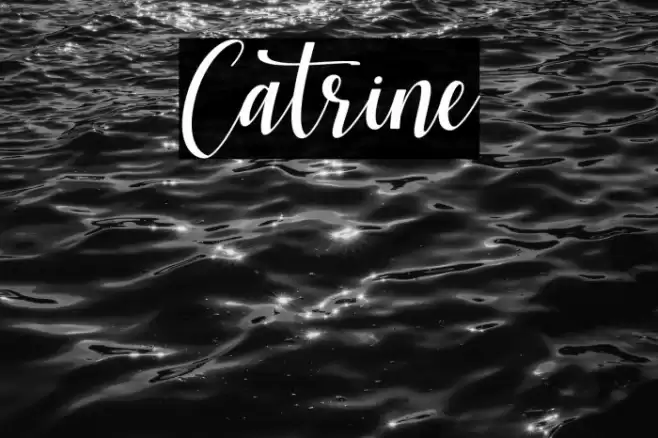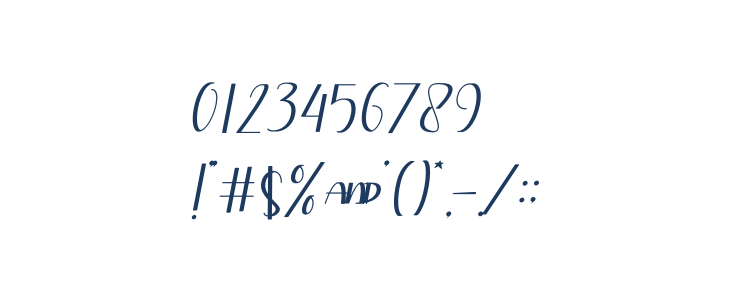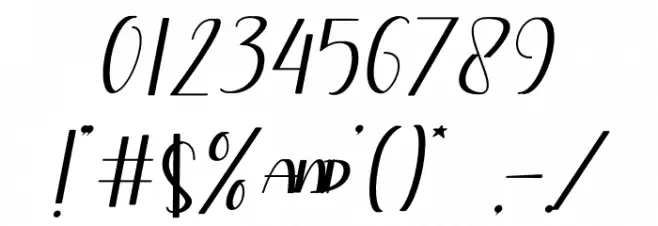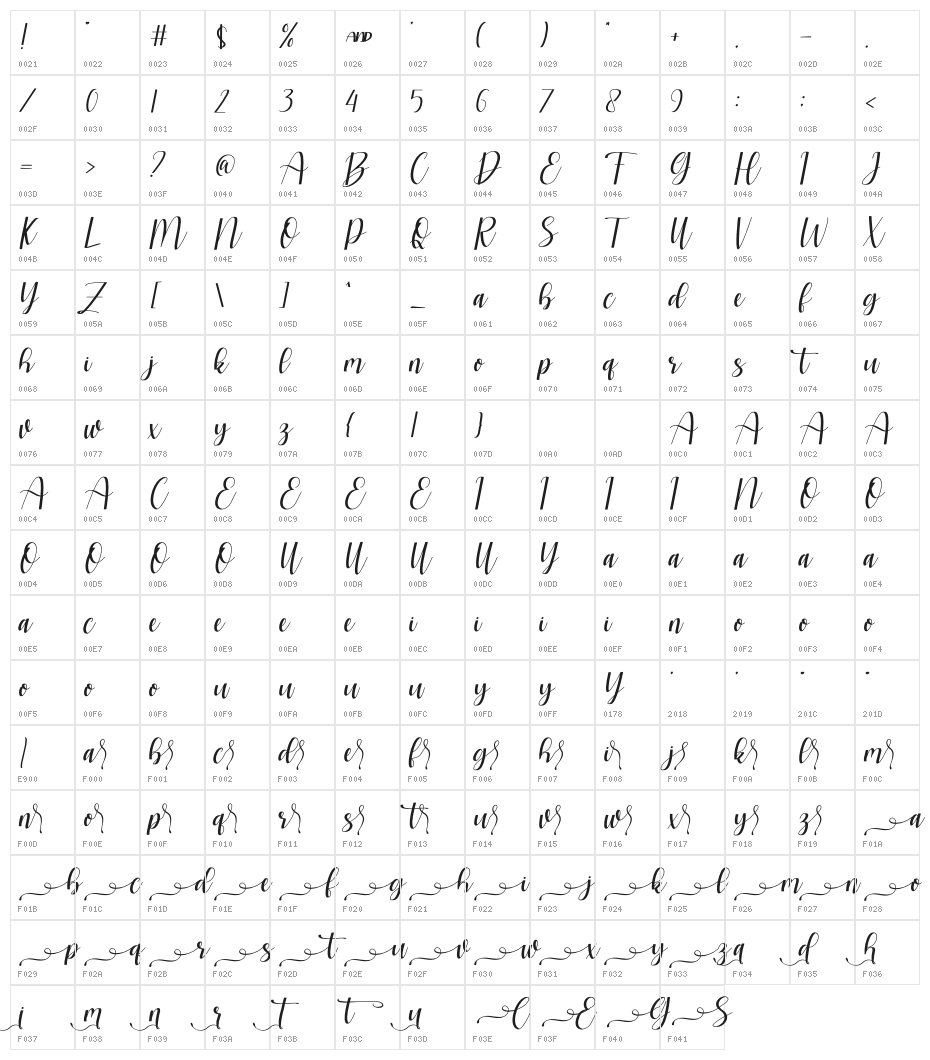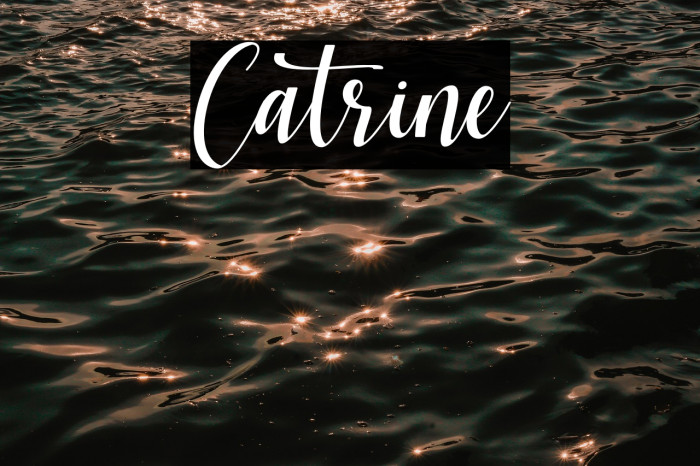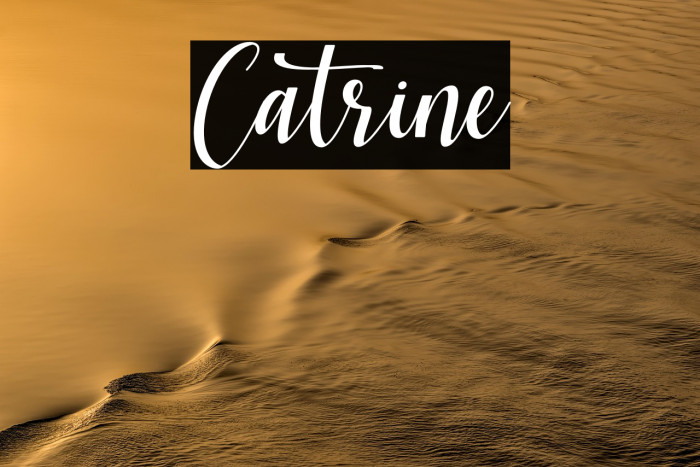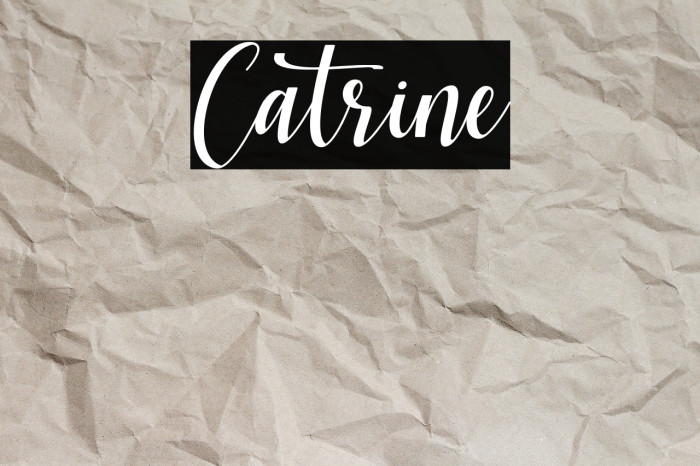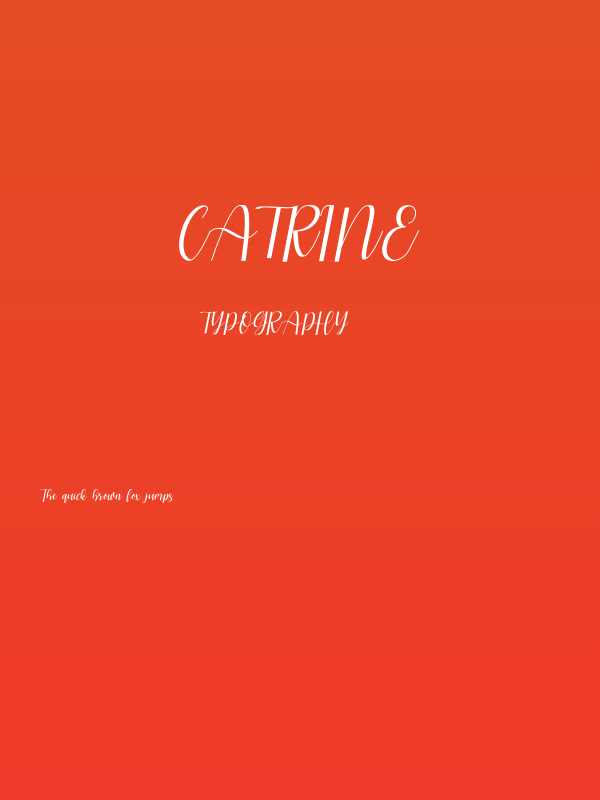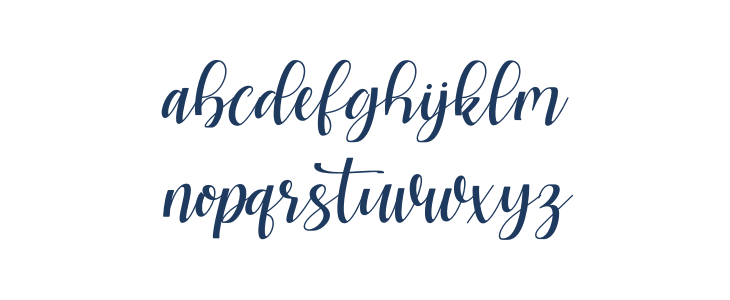
Catrine Font
Catrine Description
This elegant script font features a flowing, cursive style with a modern twist. The uppercase letters are tall and graceful, with sweeping curves and delicate loops that give a sense of movement and fluidity. The lowercase letters maintain a consistent rhythm, with a slightly more compact form that complements the uppercase characters. The numerals are stylish and easy to read, while the special characters add a touch of sophistication with their unique flair. This font is perfect for projects that require a personal, handwritten touch, yet maintain a level of elegance and professionalism.
A modern, elegant script font with flowing, cursive characters from Regular fonts.
- Proposed Projects: Ideal for wedding invitations, greeting cards, branding, and logo design.
- Use Case: Logos, Invitations, Branding